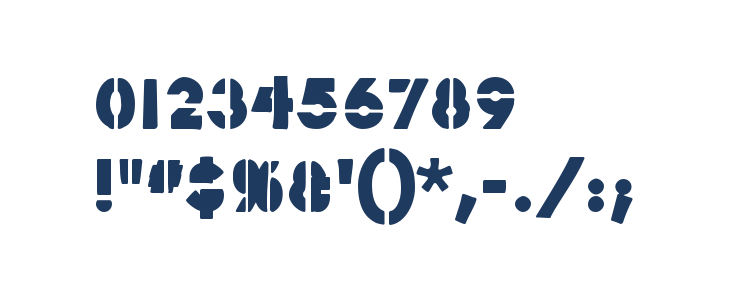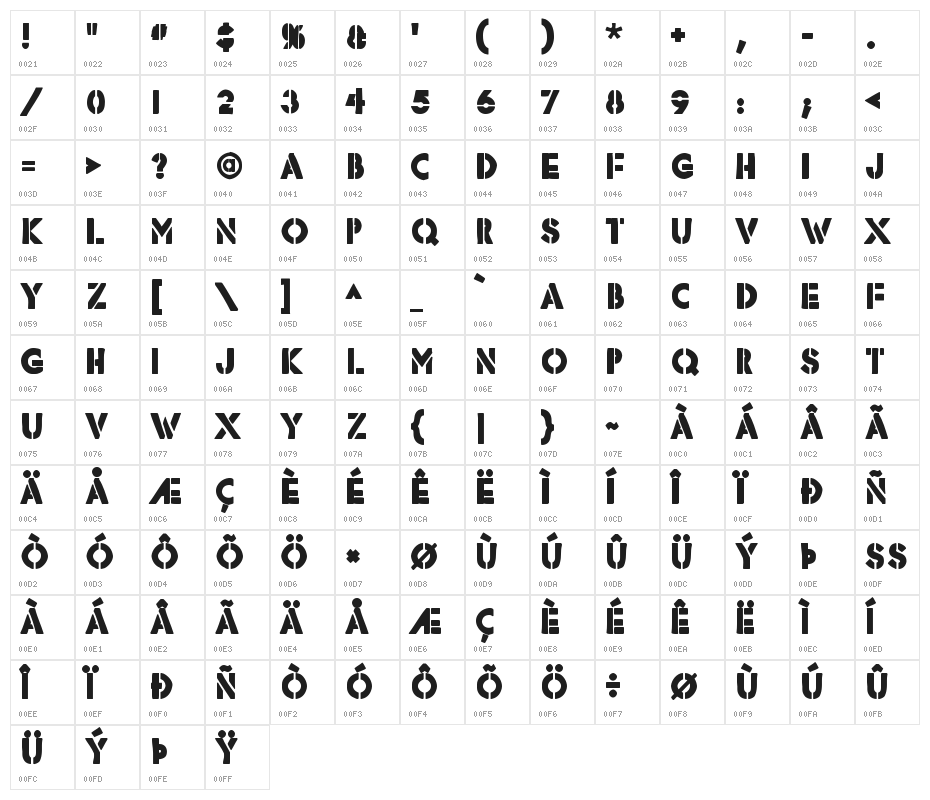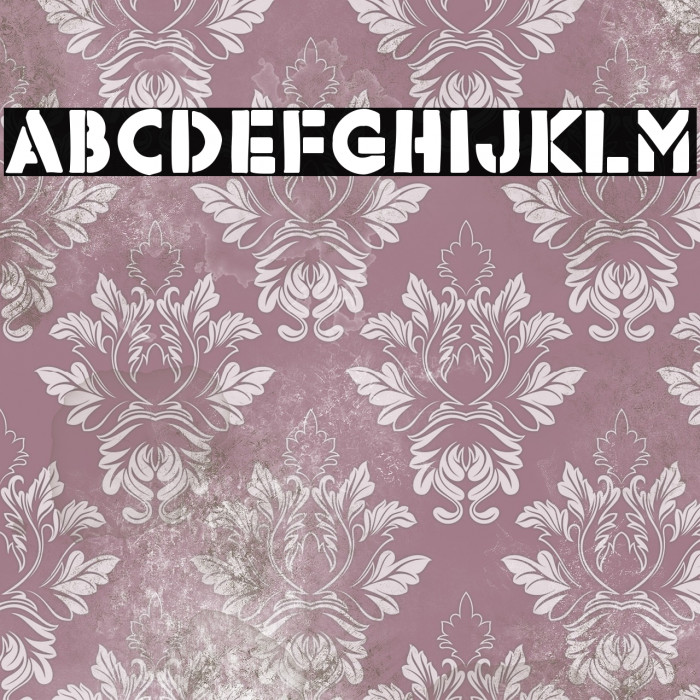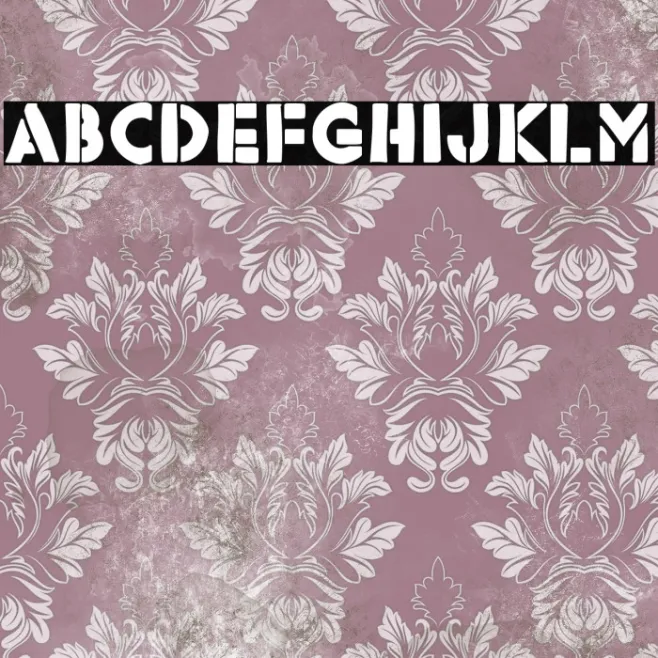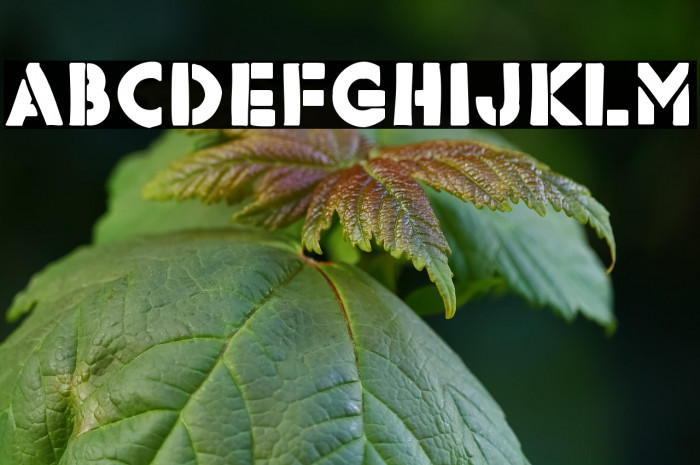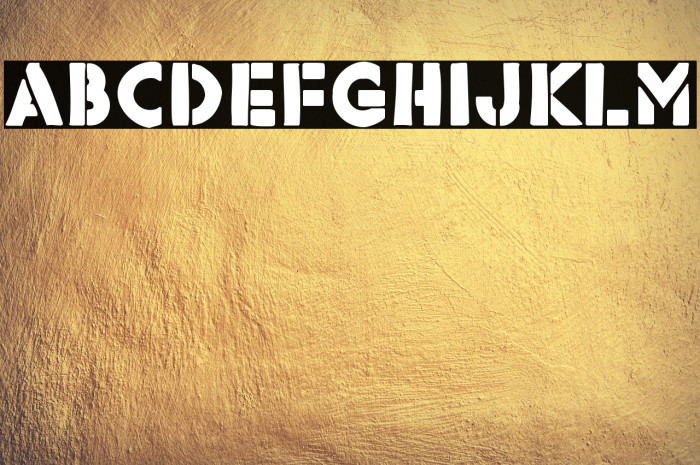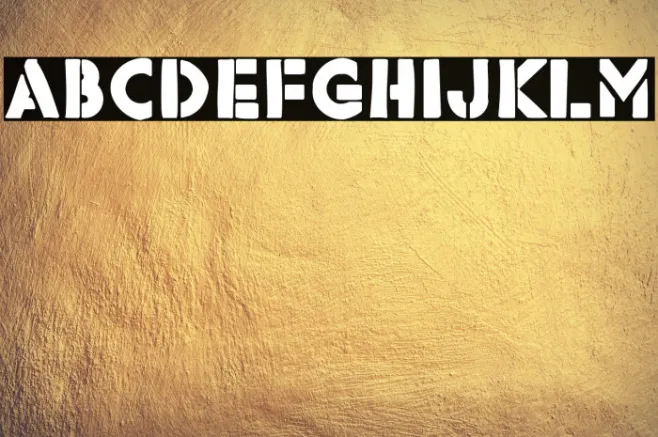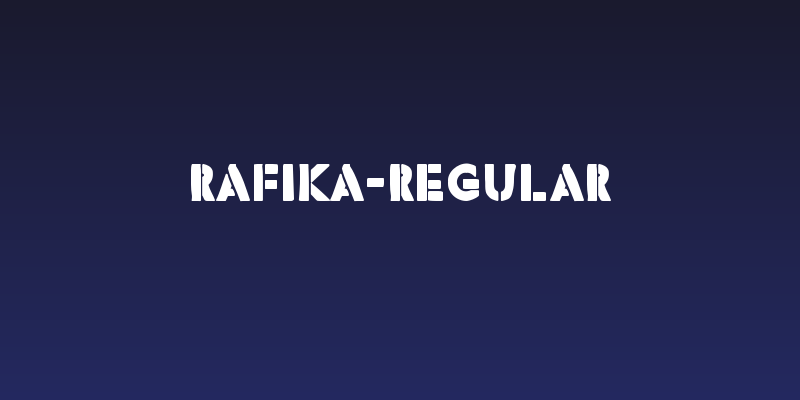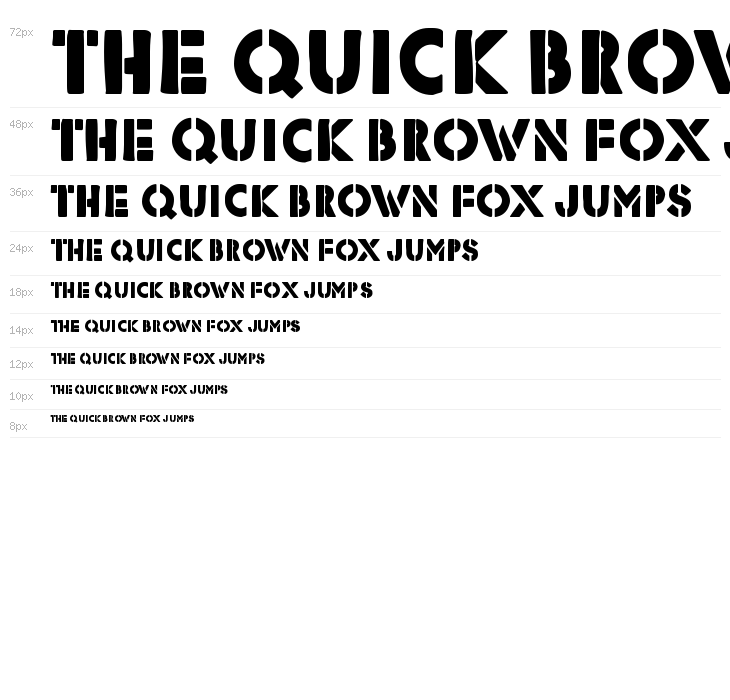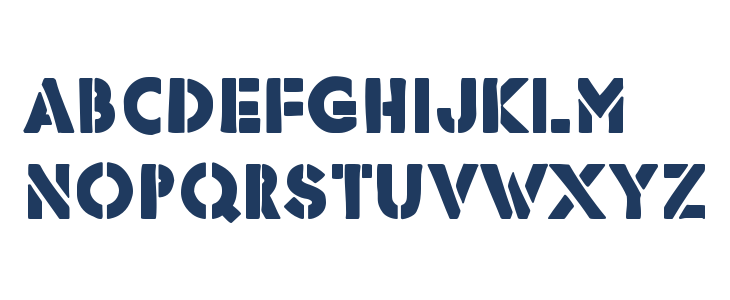
Rafika-Regular Font
Rafika-Regular Description
This font features a bold, stencil-like design with distinct cutouts in each character, creating a striking and industrial appearance. The uppercase and lowercase letters maintain a consistent weight, giving the font a uniform look. The numbers and special characters follow the same style, ensuring cohesion across all elements. The boldness of the font makes it highly visible and impactful, suitable for attention-grabbing designs. The geometric shapes and sharp angles contribute to its modern and edgy feel, making it ideal for projects that require a strong visual presence.
| Proposed Projects | Ideal for posters, signage, branding, and any design requiring a bold, industrial aesthetic. |